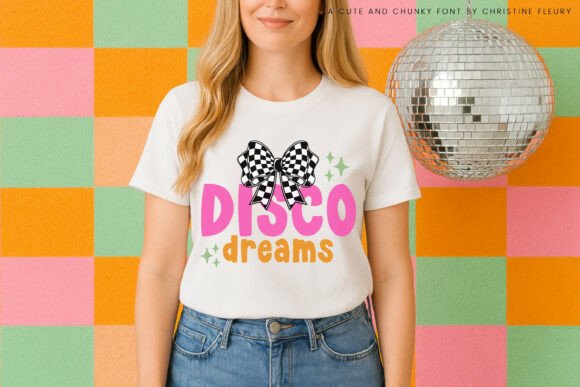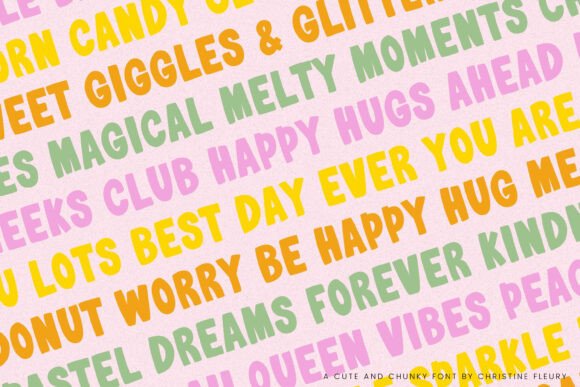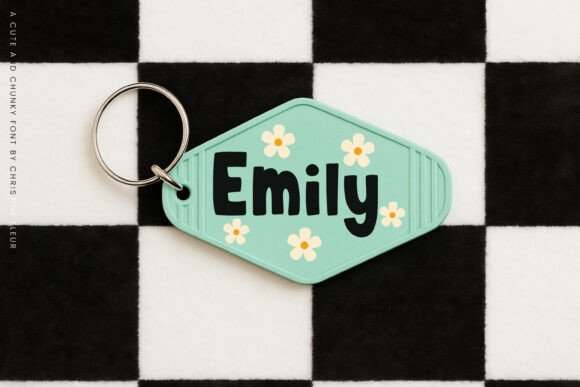
Bubblegum Pop Font
Get ready to add a burst of playful charm to your designs with Bubblegum Pop — a chunky, cute, and retro-inspired font made for good vibes only 💖. With its bubbly curves and hand-drawn style, this font is perfect for Crafters, Cricut users, Procreate lovers, and anyone looking to add a bold pop to their projects. Use it for Sublimation designs, SVGs, Stickers, Cards, Mugs, Logos, Wall Art, and so much more!